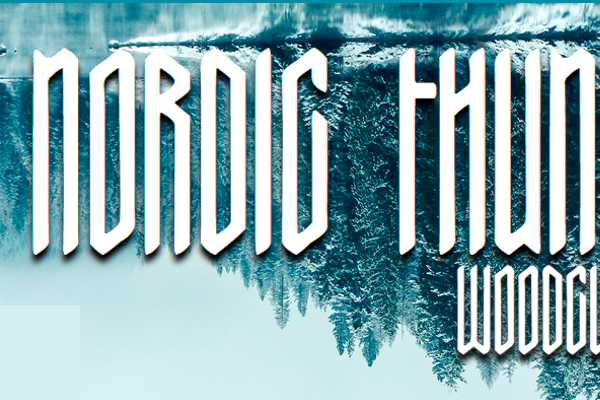
Nordic fonts originated from Scandanavia. These font styles date back to the Viking era. The Nordic font style is usually written in a geometrically pleasing way making these fonts pleasing to look at and very easy to read. Thanks to the age of technology, Nordic fonts have been given a new lease on life. They have been used in almost everything you can think of, from invitations and webpages to comic books and even TV shows. The possibilities are endless with Nordic fonts, and thanks to our Nordic font generator tool you can create your very own Nordic inspired image or logo.